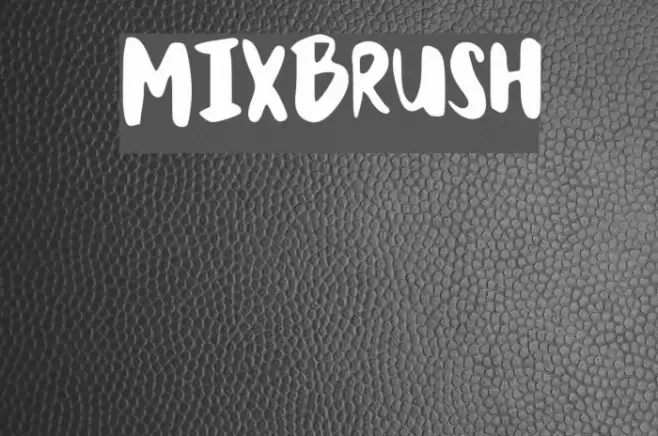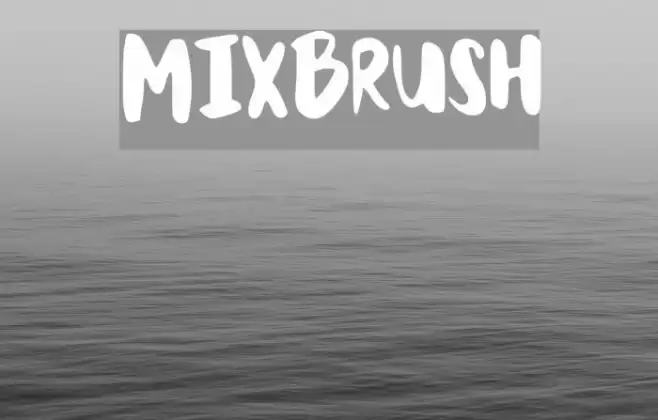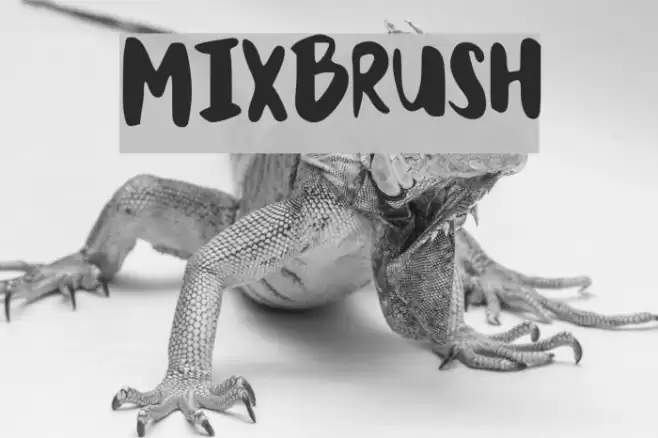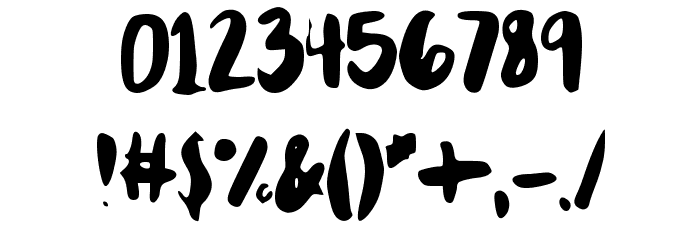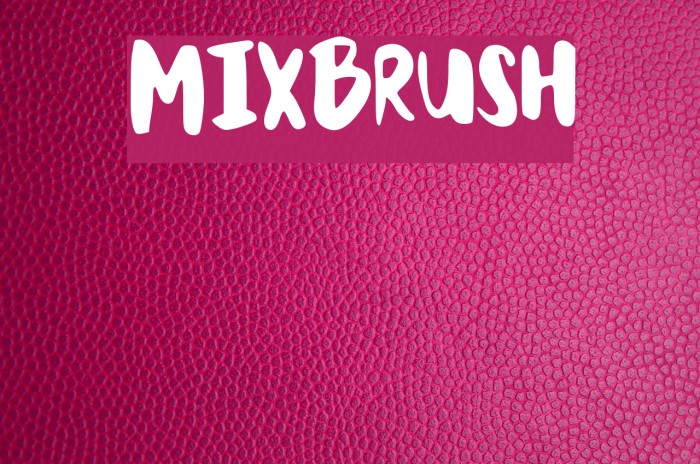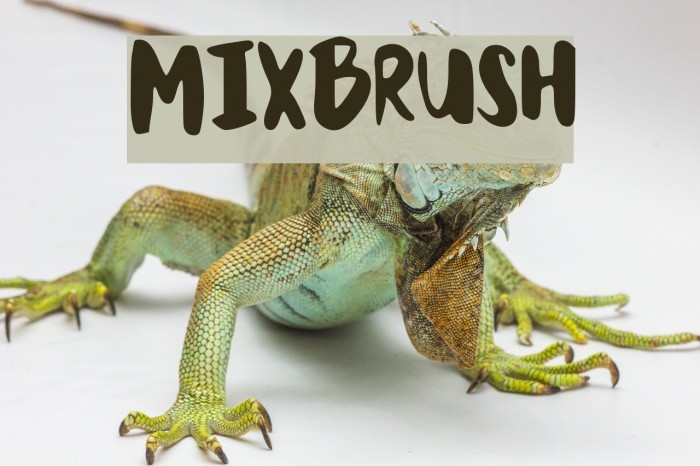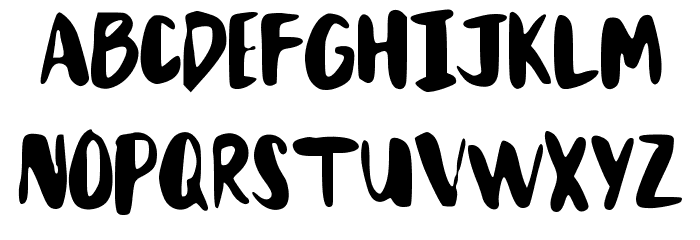
MixBrush Font
MixBrush Description
This font exhibits a bold, brush-like style that conveys a sense of energy and dynamism. The characters are crafted with a hand-painted appearance, featuring irregular edges and varying stroke widths that add a personal, artistic touch. The uppercase and lowercase letters maintain a consistent style, with a playful and informal feel. The numbers and special characters are equally expressive, complementing the overall aesthetic. This font is ideal for projects that require a lively and creative vibe, such as posters, branding, and artistic designs.
A bold, brush-style font with an energetic and artistic flair from Script fonts.
- Proposed Projects: Perfect for posters, branding, artistic designs, and any project needing a lively, creative touch.